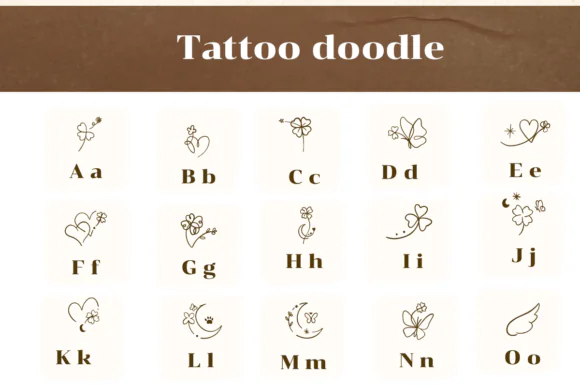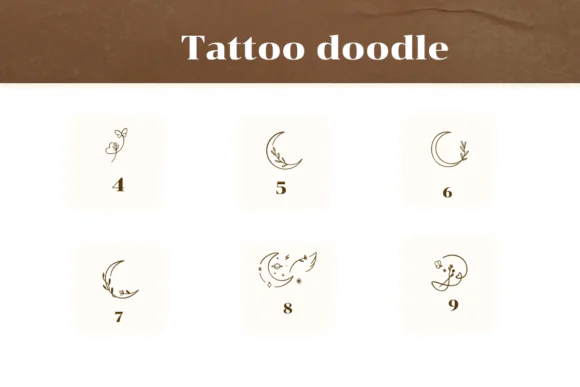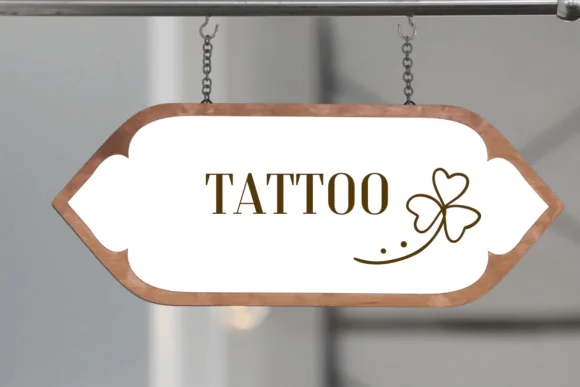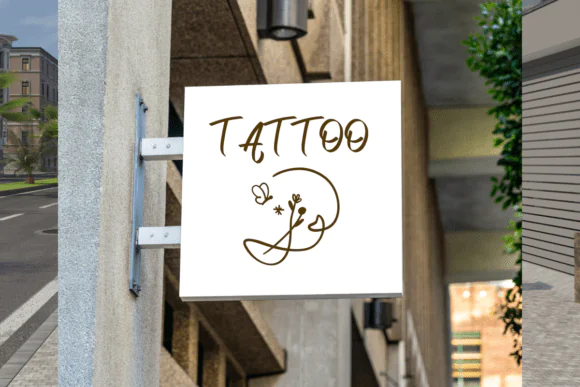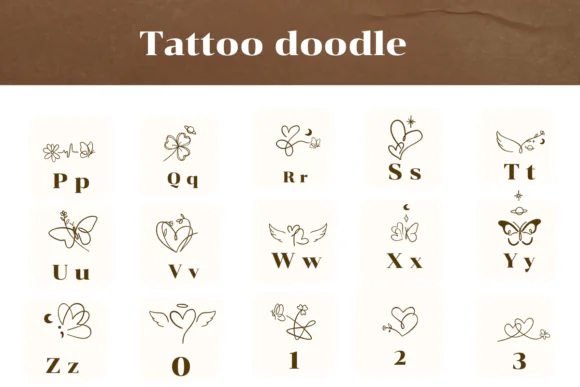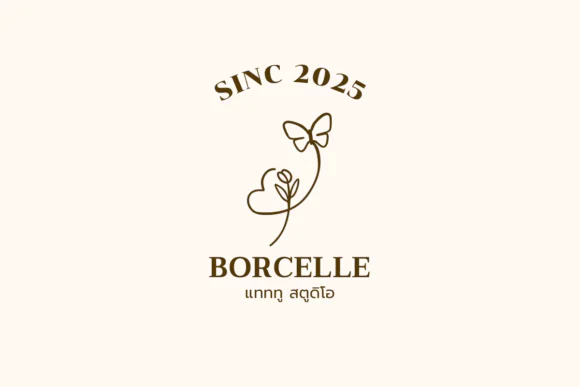
Tattoo Doodles Dingbat Font | Whimsical Mini Tattoo Illustration Typeface for Flash Tattoos, Stationery, Branding, Planners, Greeting Cards & Social Media Designs
Create soft, romantic, and playful tattoo-inspired designs with Tattoo Doodles Font, a charming dingbat font filled with whimsical mini illustrations. This decorative font includes a delightful mix of hearts, wings, moons, flowers, butterflies, and other cute design elements that bring elegance, personality, and artistic character to your creative projects.
Tattoo Doodles Font is ideal for tattoo artists, designers, crafters, stationery creators, branding professionals, printable sellers, planner designers, social media creators, and digital product makers who want a beautiful mini illustration font for stylish layouts. Each glyph adds a decorative touch that works perfectly for flash tattoo designs, planner pages, greeting cards, invitations, stickers, logos, boutique branding, packaging, social media graphics, wall art, and digital crafts.
With its soft romantic aesthetic and playful edge, Tattoo Doodles helps you create designs that feel expressive, trendy, and visually memorable. Whether you are designing tattoo flash sheets, feminine branding elements, cute greeting cards, moon-and-flower artwork, butterfly stickers, or elegant social content, this font adds instant charm to every composition.
• Flash tattoo designs
• Tattoo-style mini illustrations
• Stationery art
• Branding and logos
• Planner decorations
• Greeting cards
• Stickers and labels
• Invitations
• Boutique packaging
• Wall art prints
• Digital scrapbooking
• Feminine designs
• Romantic craft projects
• Printable design products
Key Style Features
• Charming dingbat font
• Whimsical mini illustrations
• Includes hearts, wings, moons, flowers, and butterflies
• Soft romantic aesthetic
• Playful tattoo-inspired edge
• Great for flash tattoos and stationery
• Perfect for branding and social media graphics
• Easy decorative glyphs for digital and print projects